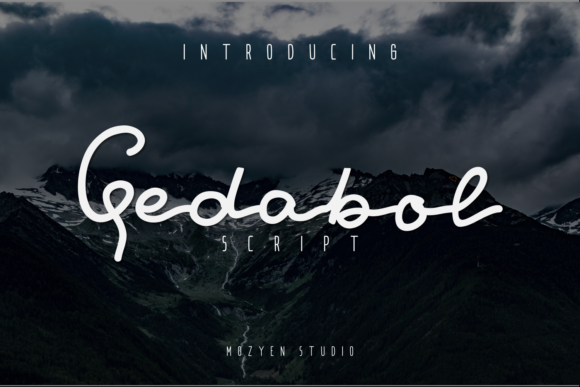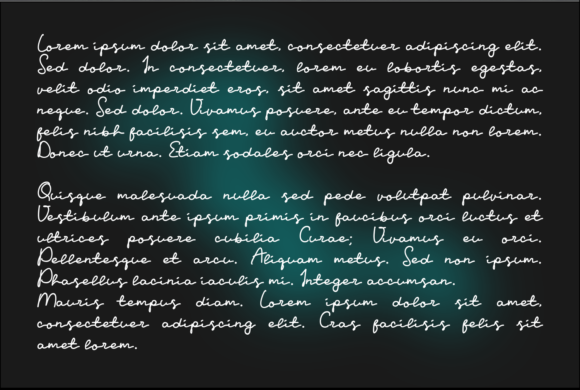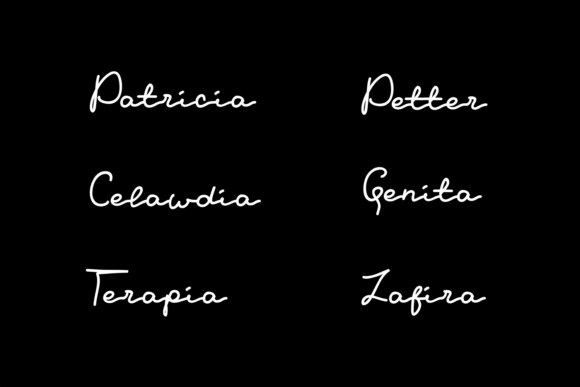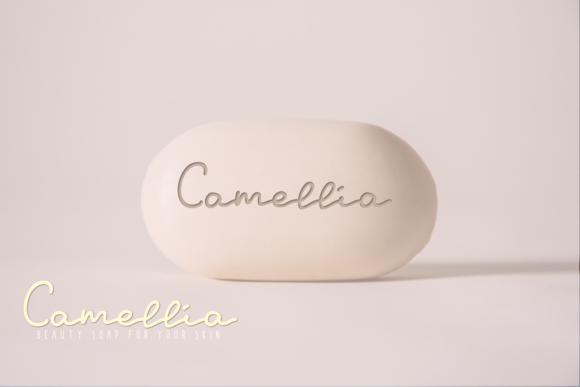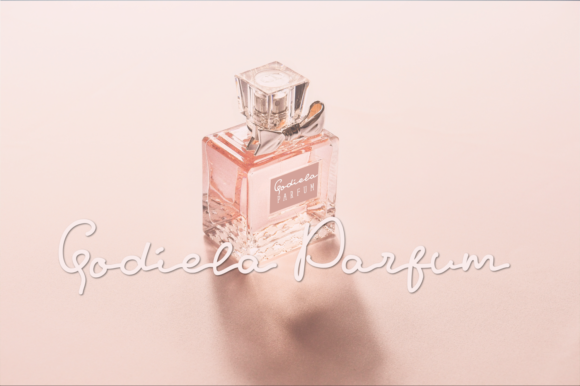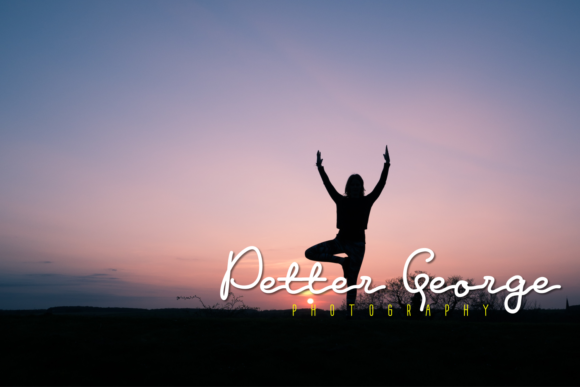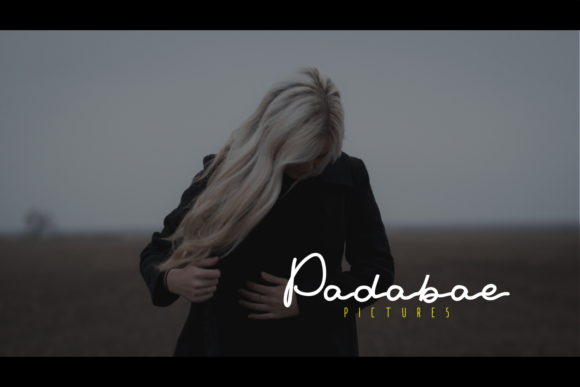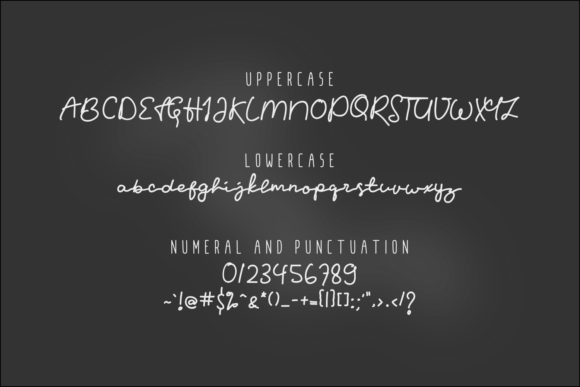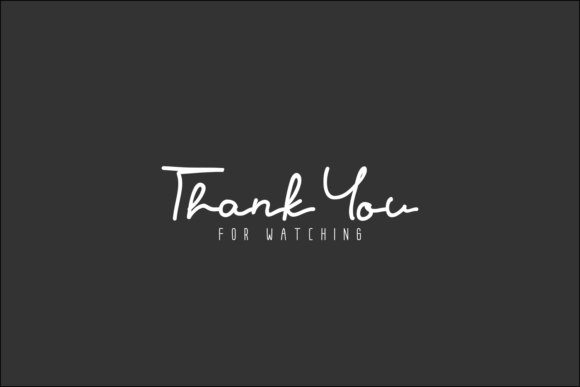
Gedabol Font
About Gedabol Font
Gedabol is a casual and modern handwritten font carefully created with a touch of elegance. This is a beautiful combination of timeless elegance and authentic calligraphy. It features an incredibly classic style, while still keeping a friendly feel. Gedabol is the perfect font for making original and outstanding designs.